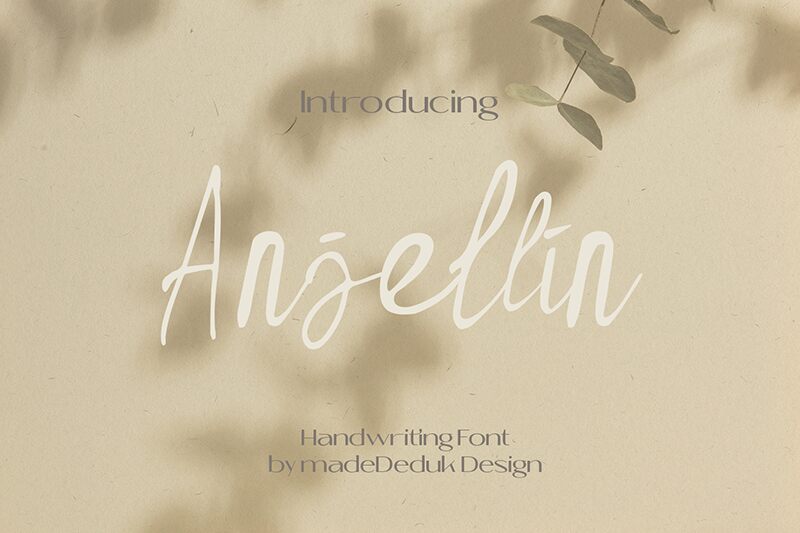
Anjellin Demo
Anjellin, a captivating handwritten font crafted by madeDeduk, exudes a delightful blend of elegance and playfulness. Its flowing, organic strokes and natural variations create a sense of warmth and personality, inviting the viewer to explore its unique character. This font's distinct aesthetic appeal makes it a captivating choice for a wide range of design applications, from fashion-forward branding to charming editorial layouts.
Anjellin's versatility shines through its ability to seamlessly transition between formal and casual settings. Its expressive, yet legible, nature lends itself well to various design contexts, such as wedding invitations, greeting cards, and product packaging. Whether used as a focal point or a harmonious accent, Anjellin's distinctive style can elevate the visual impact of any project, effortlessly conveying a sense of artistry and personal touch.